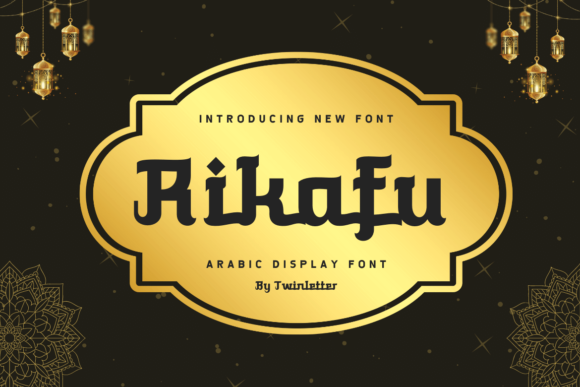
Unleash the beauty of Arabic calligraphy with Rikafu Arabic, the most captivating display font that transforms your designs into masterpieces. Inspired by the rich heritage of Islamic art, Rikafu Arabic brings a touch of elegance and sophistication to your projects, making them stand out from the crowd.
Immerse yourself in the intricate details and flowing curves of each character, carefully crafted to evoke a sense of awe and admiration. With Rikafu Arabic, you have the power to create stunning Arabic and Islamic ornament designs that captivate the eyes and leave a lasting impression.
Effortlessly elevate your projects with Rikafu Arabic's versatility, adapting seamlessly to a variety of design styles from modern to classic. Showcase your creativity by crafting eye-catching posters, enchanting invitations, elegant logos, and mesmerizing social media graphics.
Transport your audience to the heart of Arabic culture with Rikafu Arabic's authentic and enchanting aesthetic. This font is not just a collection of letters; it's a gateway to a world of beauty and grace, inviting your audience to experience the timeless allure of Arabic calligraphy.
Take your design skills to the next level and unlock the true potential of your creative vision with Rikafu Arabic. This font is more than just a tool; it's an extension of your artistry, allowing you to express yourself in ways you never thought possible.